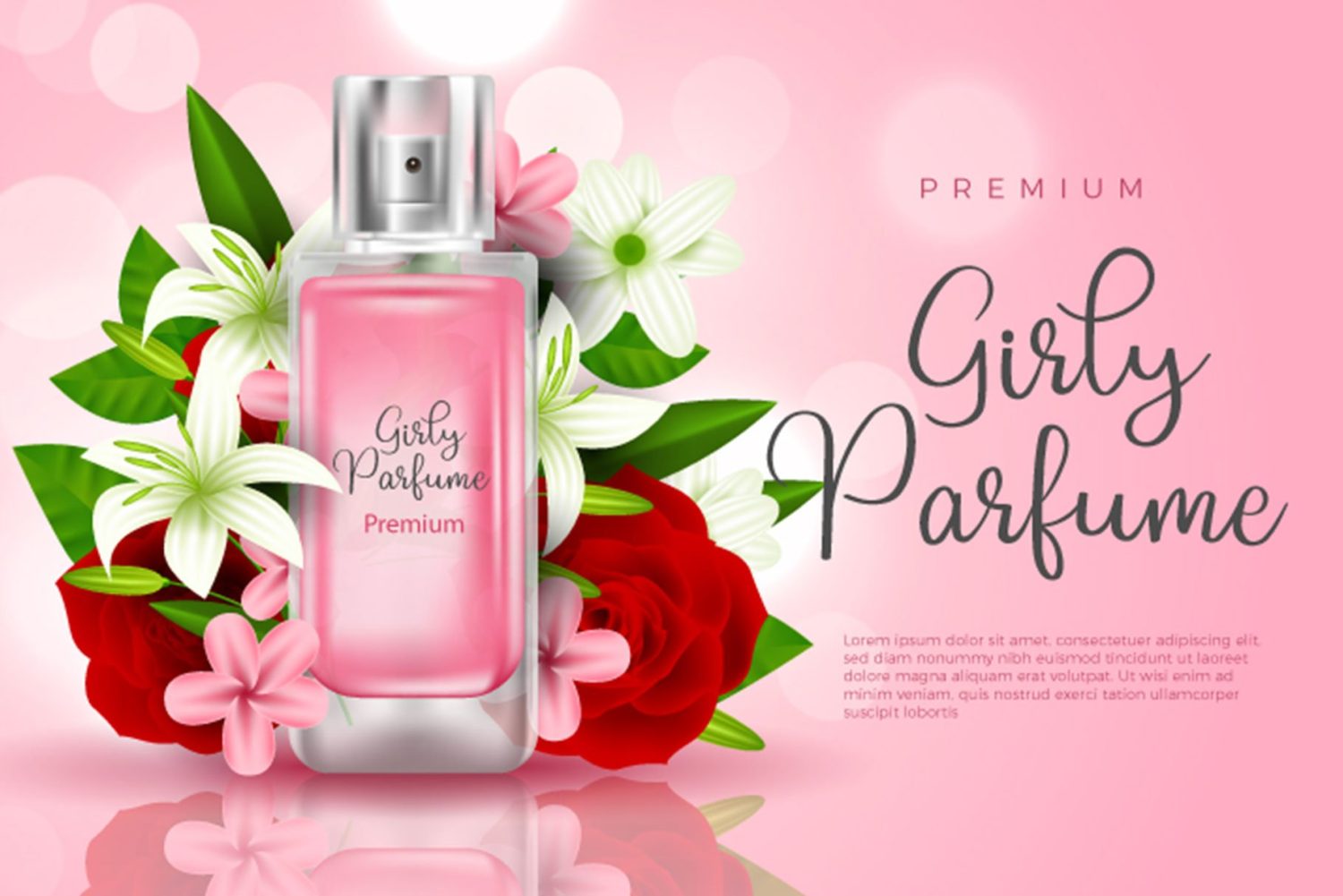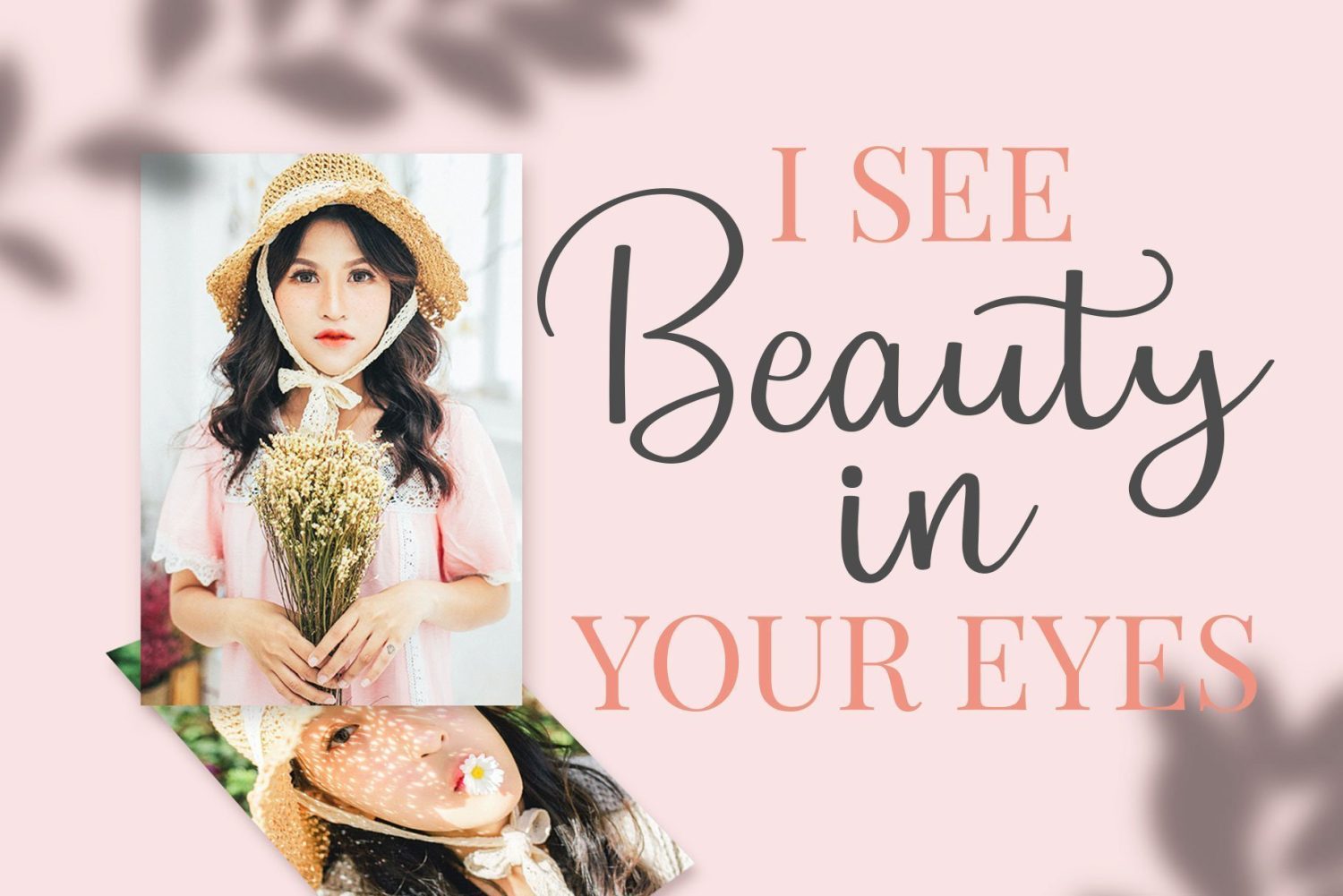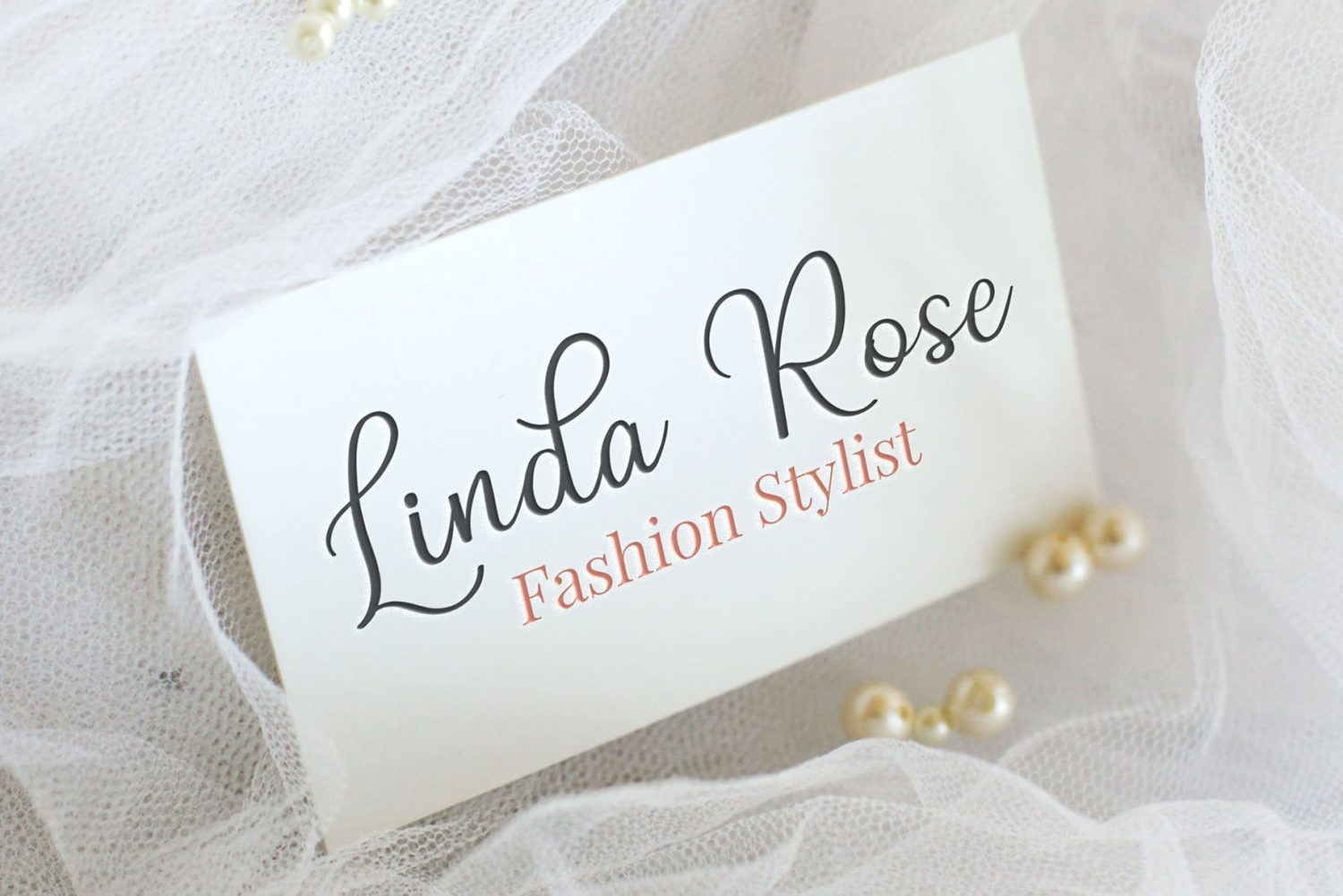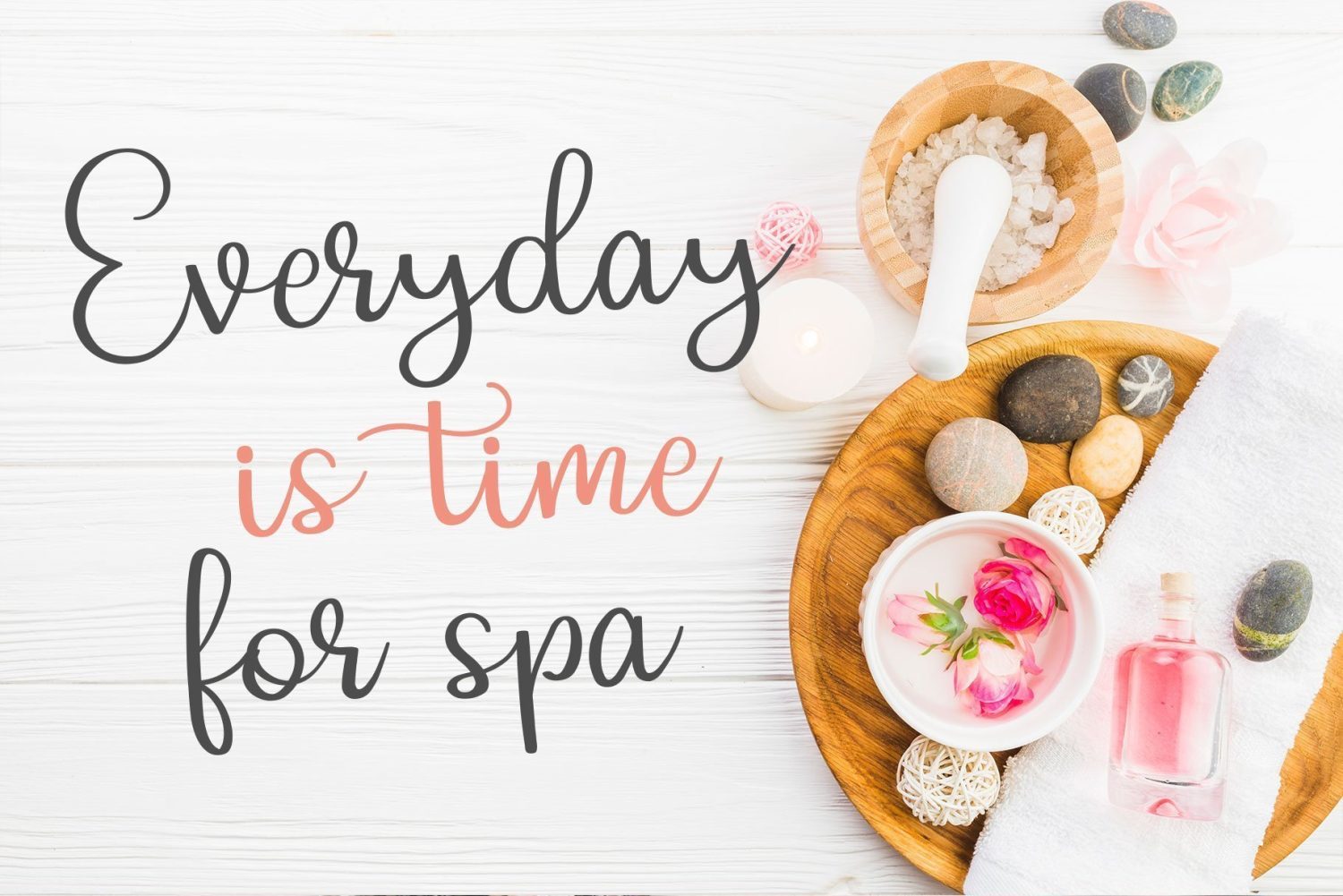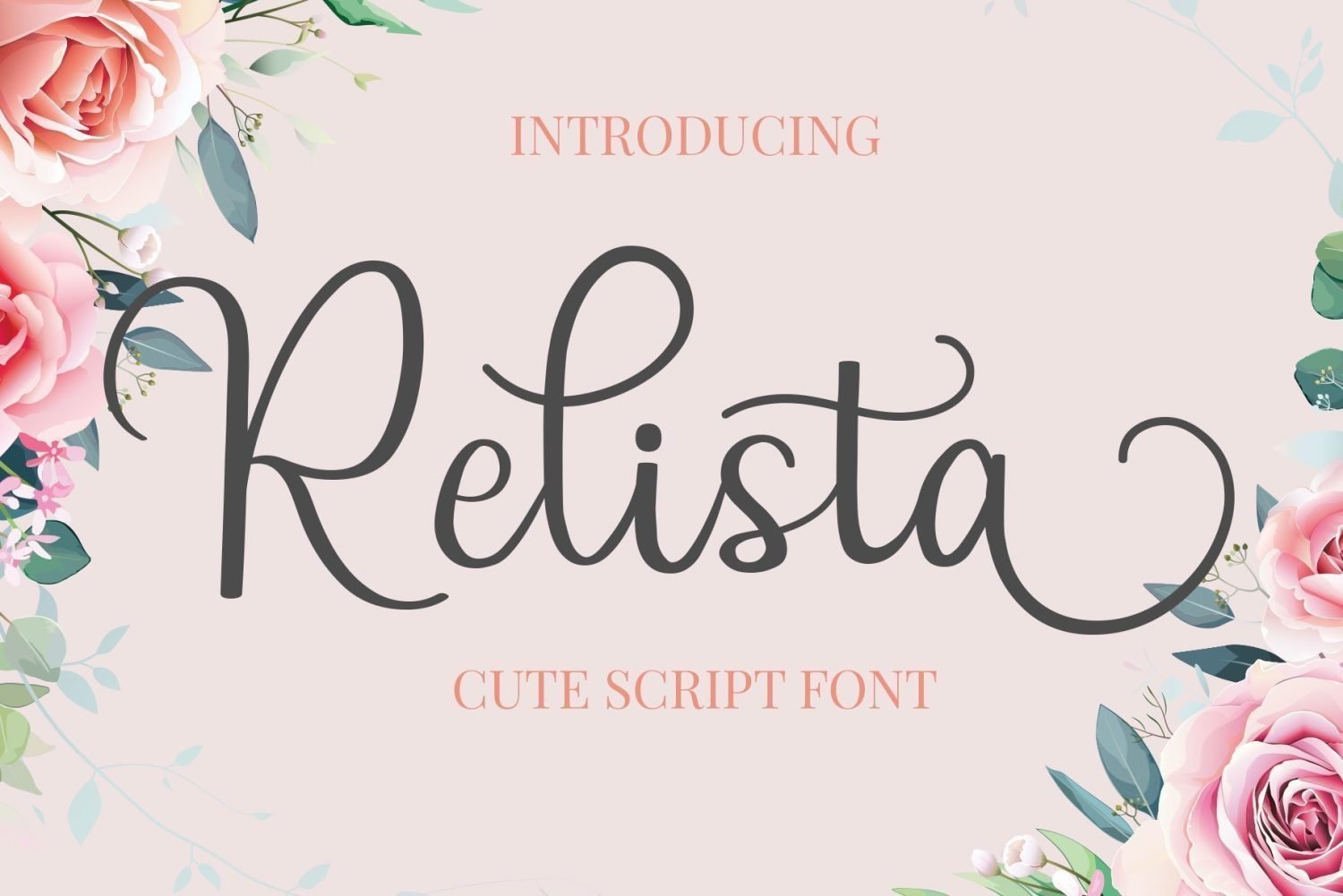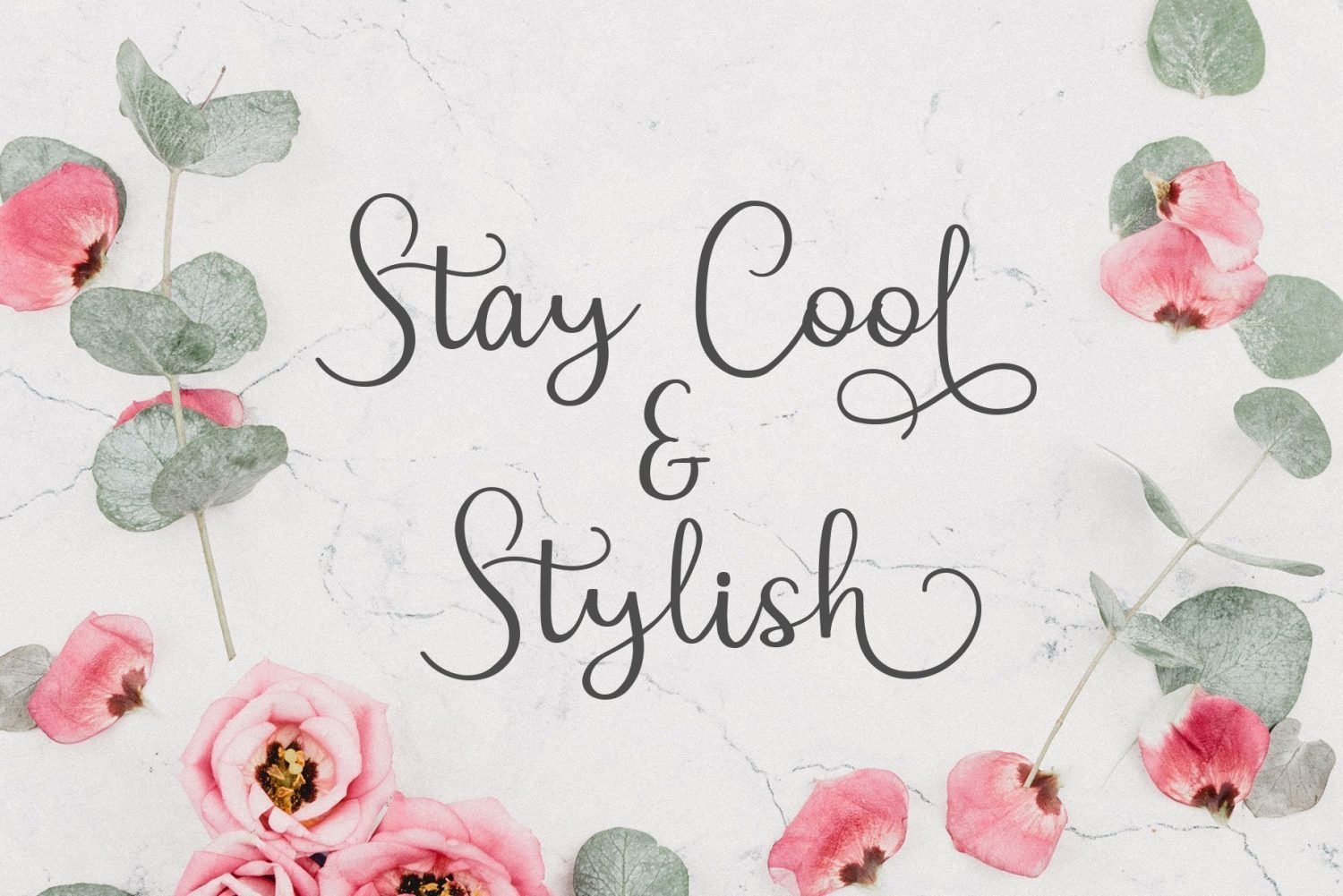
relista script font
relista script font for parfume
relista elegant script font
relista script font for spa poster
relista script font
relista script font for parfume
relista elegant script font
relista script font for spa poster
Relista is a new modern & fresh calligraphy script with natural script style. This font will make your design look elegant, natural and stylish. Relista calligraphy script font is great for quote design, branding, wedding, photography, simply design with stylish text overlay to any background image.
Relista Script Font